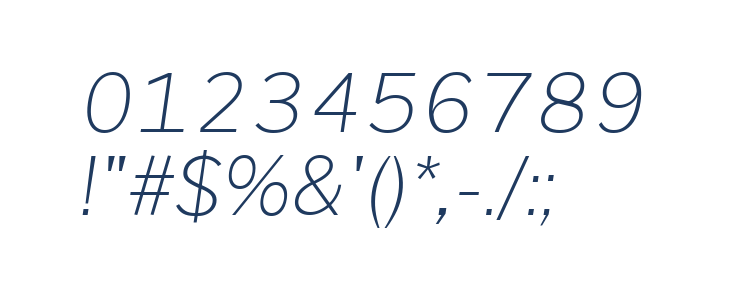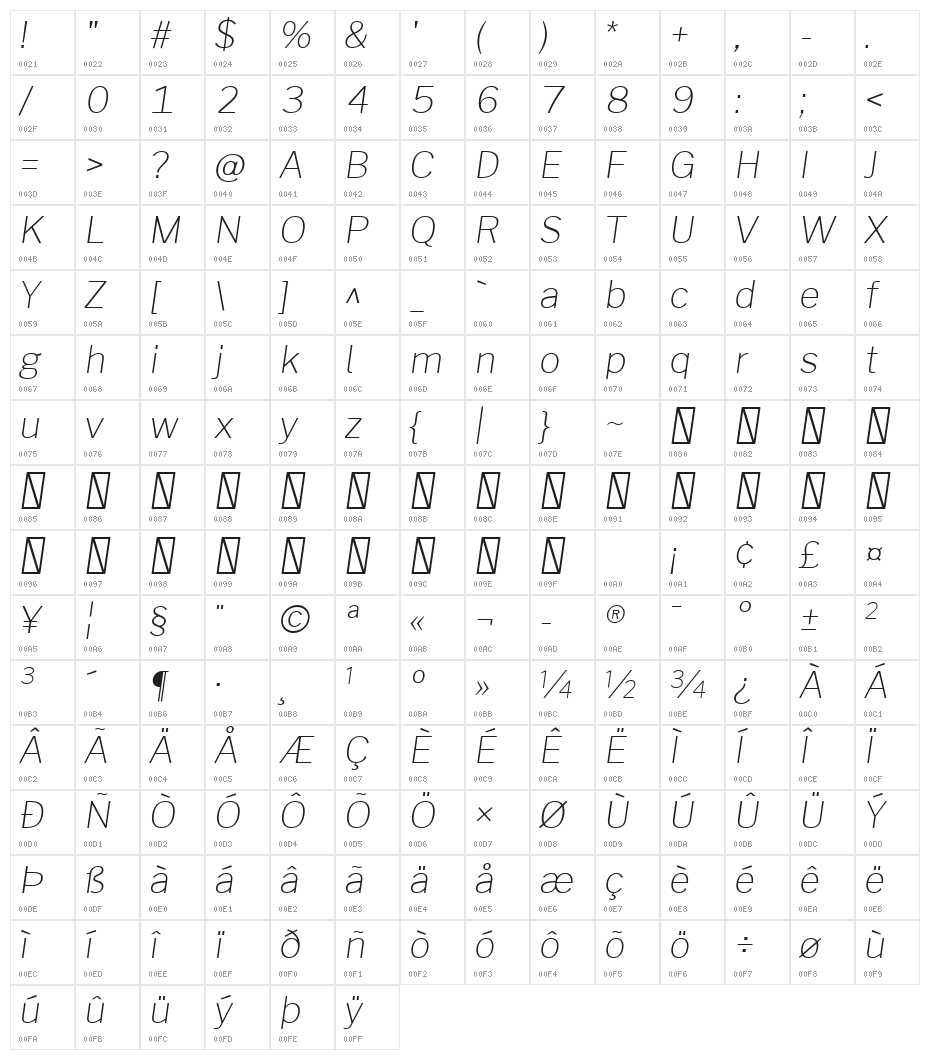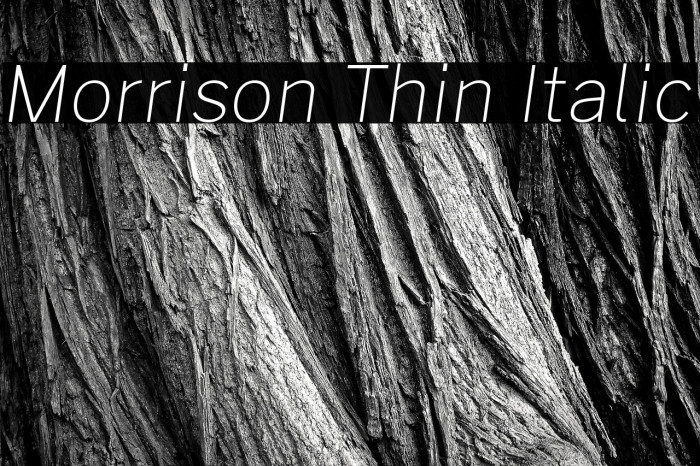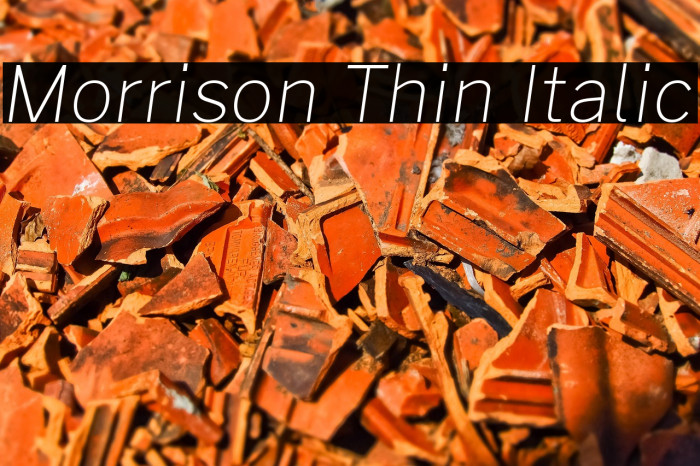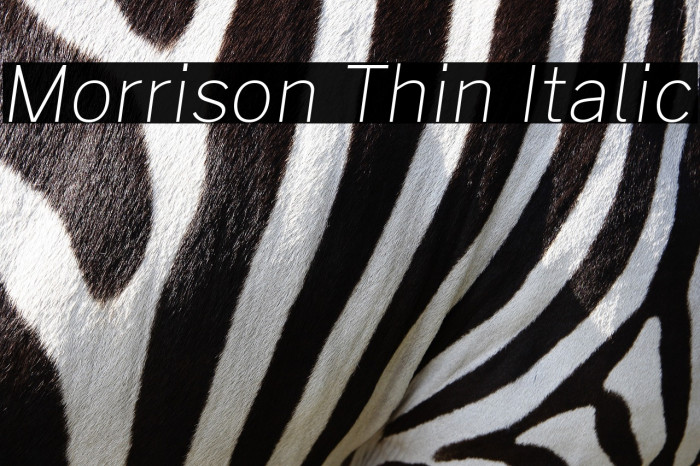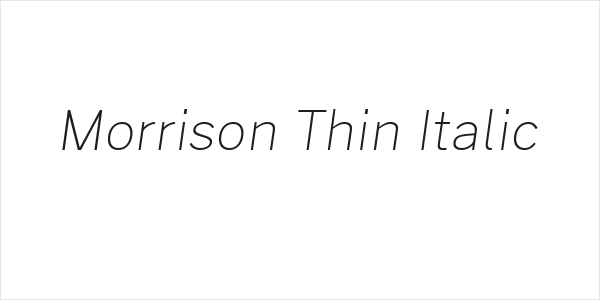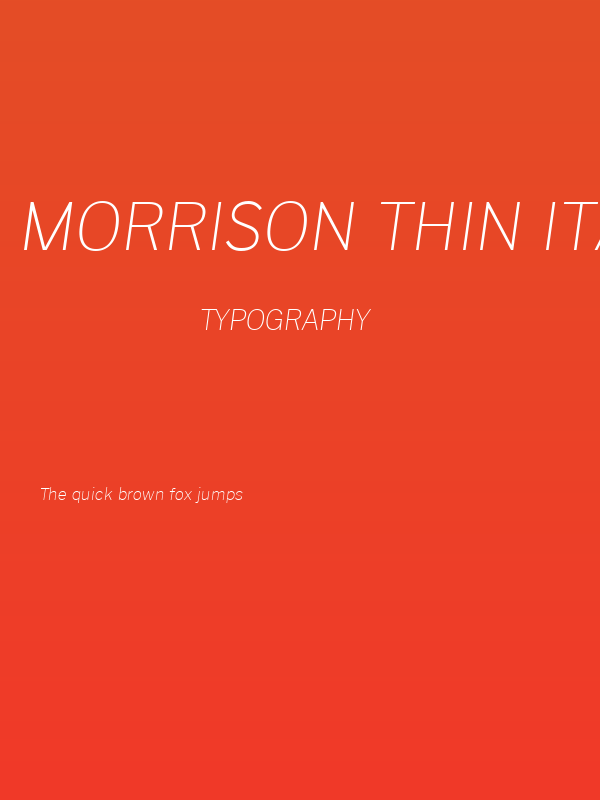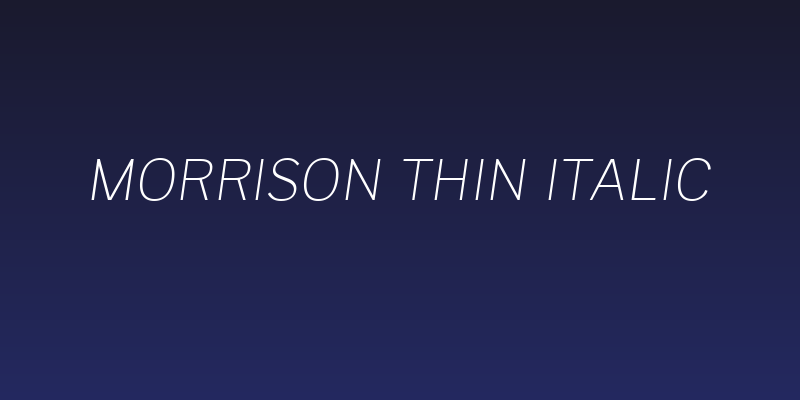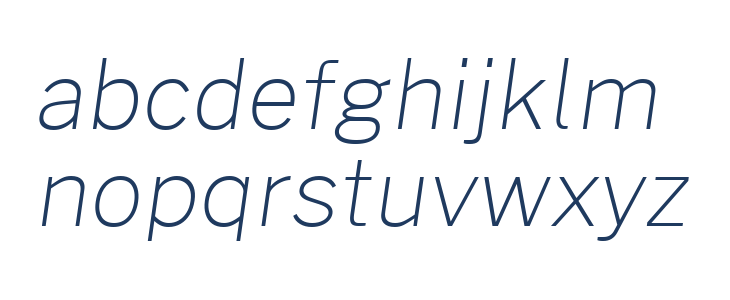
Morrison Thin Italic Font
Morrison Thin Italic Description
This font features a sleek and elegant design with a thin weight and italic style. The characters are crafted with precision, showcasing a modern aesthetic that is both minimalistic and sophisticated. The uppercase and lowercase letters maintain a consistent structure, with smooth curves and clean lines. The numerals are equally refined, offering a cohesive look across all characters. Special characters are included, enhancing the font's versatility. The overall appearance is airy and light, making it suitable for projects that require a touch of elegance and modernity.